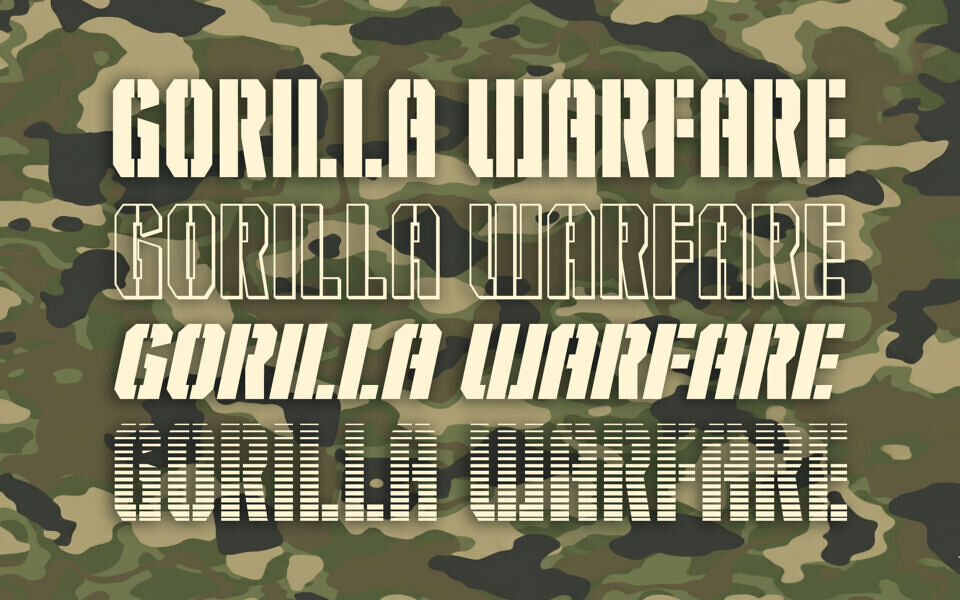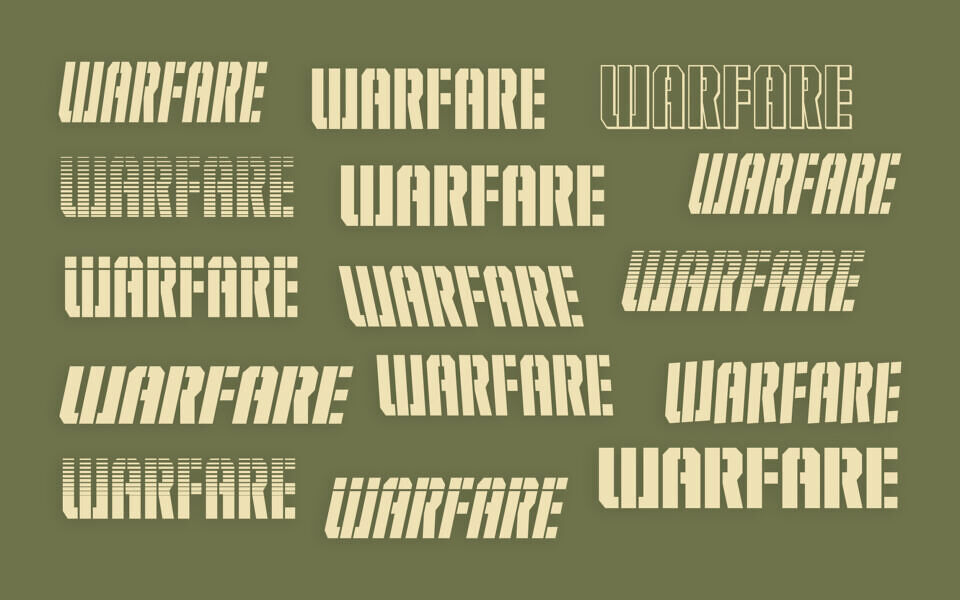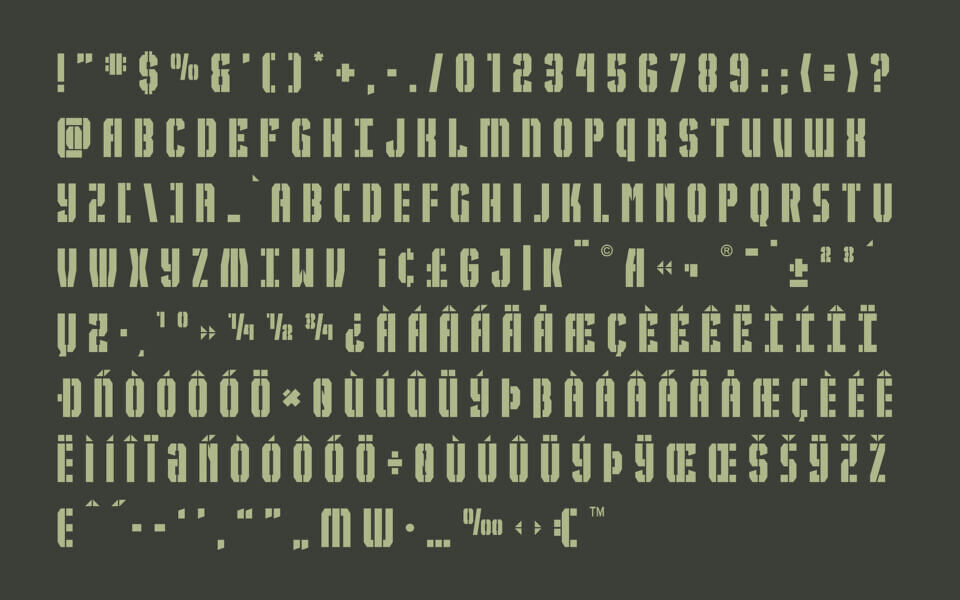
Gorilla Warfare Font Family
Designed by Iconian Fonts, Gorilla Warfare is a bold, aggressive display typeface built for high impact. True to its name, the aesthetic leans heavily into a gritty, military-inspired style, blending a structured, blocky sans-serif foundation with distinct stenciled cutouts.
Its heavy, commanding visual presence makes it perfect for titles, posters, branding, and energetic display layouts where you need the text to stand out with a sense of strength, action, and rugged utility. The family contains 36 distinct variations across different widths, slants, and weights, allowing for immense layout flexibility.